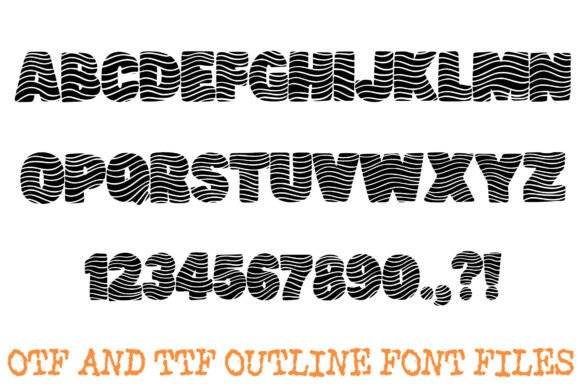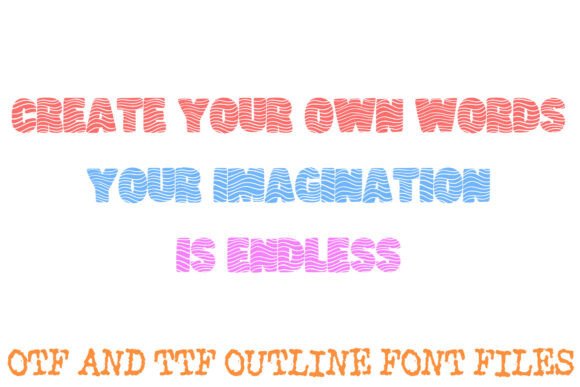
Introduction to Hypnotic Wavy Font
Have you ever been browsing through design inspiration boards and stumbled upon a project that just makes you feel like you’re staring into a mesmerizing vortex? For me, that moment happened when I saw a trippy festival poster with the Hypnotic Wavy Font. The hypnotic, flowing patterns within the letters seemed to dance across the screen, drawing me in and making me want to learn more about this incredible design resource.
As a designer, I can tell you that having the right tools can make all the difference in bringing your creative vision to life. That’s why I’m excited to dive into the world of the Hypnotic Wavy Font, a high-quality, hand-drawn display alphabet that’s perfect for adding a touch of modern energy to your designs. With its bold, rounded characters and undulating black and white stripes, this font is sure to elevate your creative project to the next level.
Whether you’re working on a free download project or creating high-impact graphics for a client, the Hypnotic Wavy Font is a valuable addition to any designer’s toolkit. So, let’s take a closer look at what makes this font so special and how you can use it to create truly stunning designs.
Key Features of Hypnotic Wavy Font
- Unique, Hand-Drawn Design: The Hypnotic Wavy Font features a distinctive, hand-drawn style that adds a touch of creativity to any project.
- Transparent Background: This font includes a transparent background, allowing designers to easily layer it over other design elements.
Honest Review: Hypnotic Wavy Font
I recently had the chance to work with the Hypnotic Wavy Font, and I must say it’s been a game-changer for my creative projects. The transparent background makes it incredibly versatile, allowing me to easily integrate it into any design.
What works well: ✨ The font’s unique, wavy design adds a touch of elegance to any project. It’s perfect for creating eye-catching titles or headings that demand attention. The high quality of the font is evident, and it’s clear that a lot of thought and care went into its creation.
What I wish was different: ⚠️ While the font is free to download, the limited character set can be a bit restrictive for larger projects. Additionally, the font may not be suitable for all audiences, as its wavy design can be overwhelming in certain contexts.
Overall impression: I’m thoroughly impressed with the Hypnotic Wavy Font. It’s a fantastic design resource that can add a unique touch to any project. With its transparent background and high quality design, it’s a must-have for any designer looking to elevate their work.
- Perfect for creative projects that require a touch of elegance
- High-quality design that’s perfect for titles or headings
The Hypnotic Wavy Font is a unique and captivating design resource that can elevate your creative project to the next level. With its high-quality and free download option, it’s an ideal choice for designers and artists looking to add an extra layer of sophistication to their work.